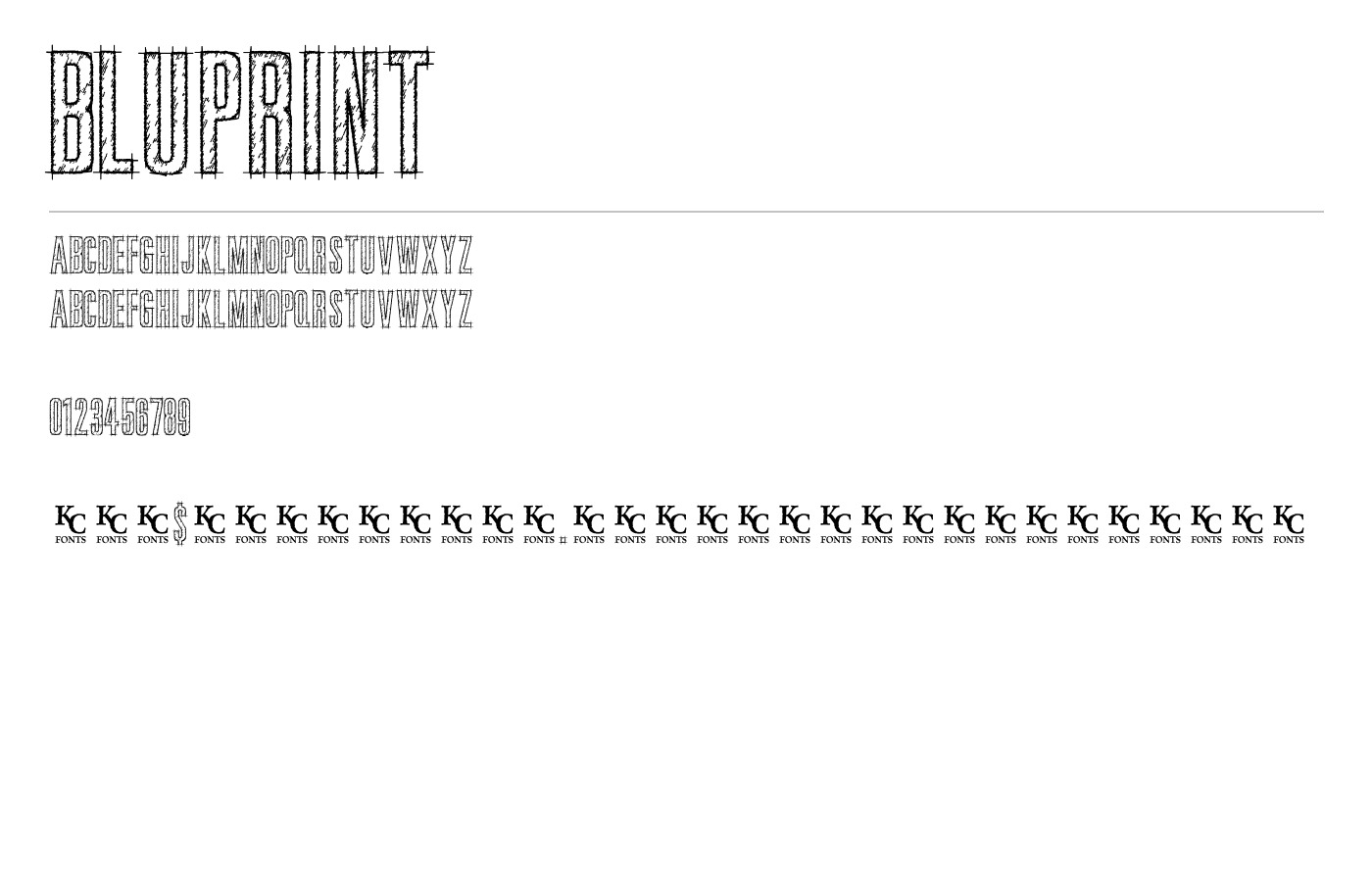
Bluprint is a narrow, sans serif display font with a technical, blueprint-style design characterized by fine lines and a hand-drawn effect that suggests precision and drafting. Its tall, condensed letterforms convey a modern, industrial feel ideal for architectural, engineering, or creative branding projects that want to evoke structure and innovation. This font works well in logos, posters, and headlines where a distinct, technical aesthetic is desired.
Bluprint Font
About Bluprint Font